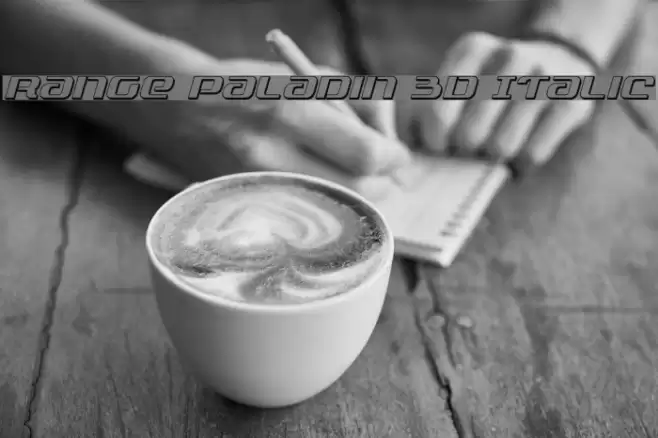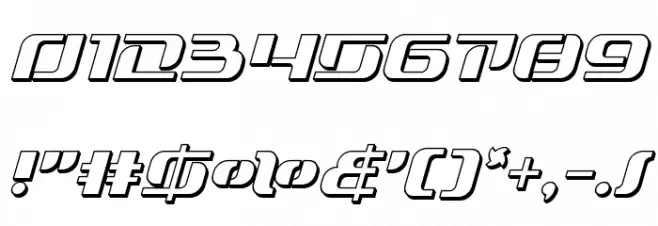
Range Paladin 3D Italic Font
Range Paladin 3D Italic Description
This font features a bold, three-dimensional design with an italic slant, creating a dynamic and futuristic appearance. The characters are outlined with a double line, giving them a sense of depth and movement. The geometric shapes and clean lines contribute to a modern aesthetic, while the italic angle adds a sense of speed and fluidity. The font is well-suited for projects that require a strong visual impact, such as technology or gaming-related designs. The spacing between characters is moderately tight, enhancing the cohesive look of the text.
A bold, 3D italic font with a futuristic and dynamic style from Uncategorized fonts.
- ( Iconian Fonts - Daniel Zadorozny - www.iconian.com FREE )
- Proposed Projects: Ideal for technology branding, gaming titles, futuristic posters, and digital media.
- Character Spacing: Tight
- Overall Style: Futuristic